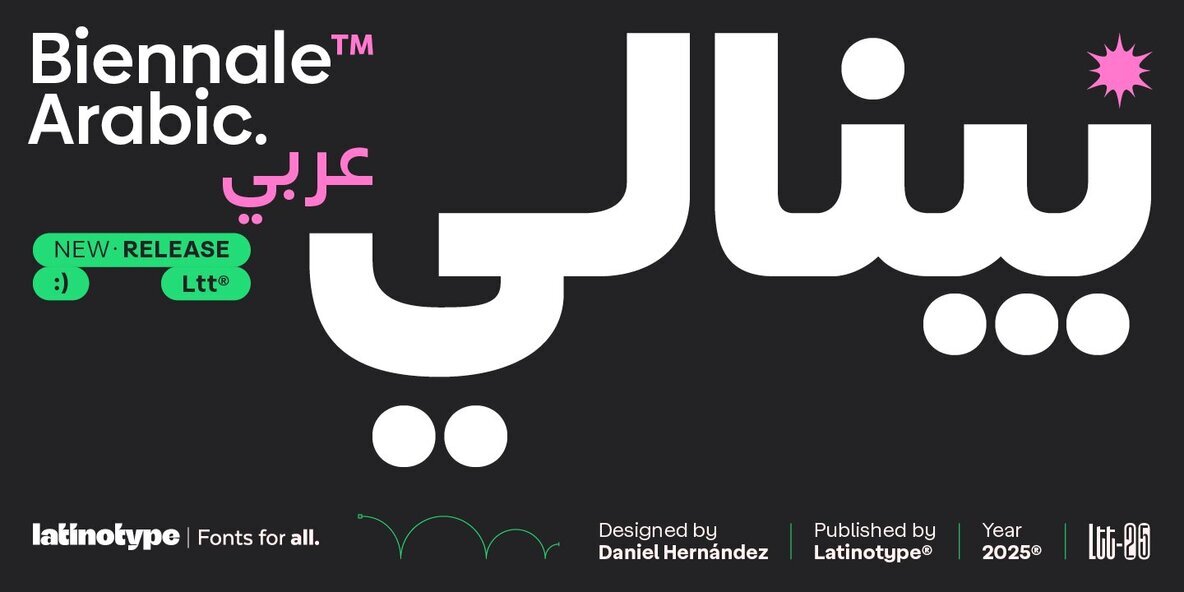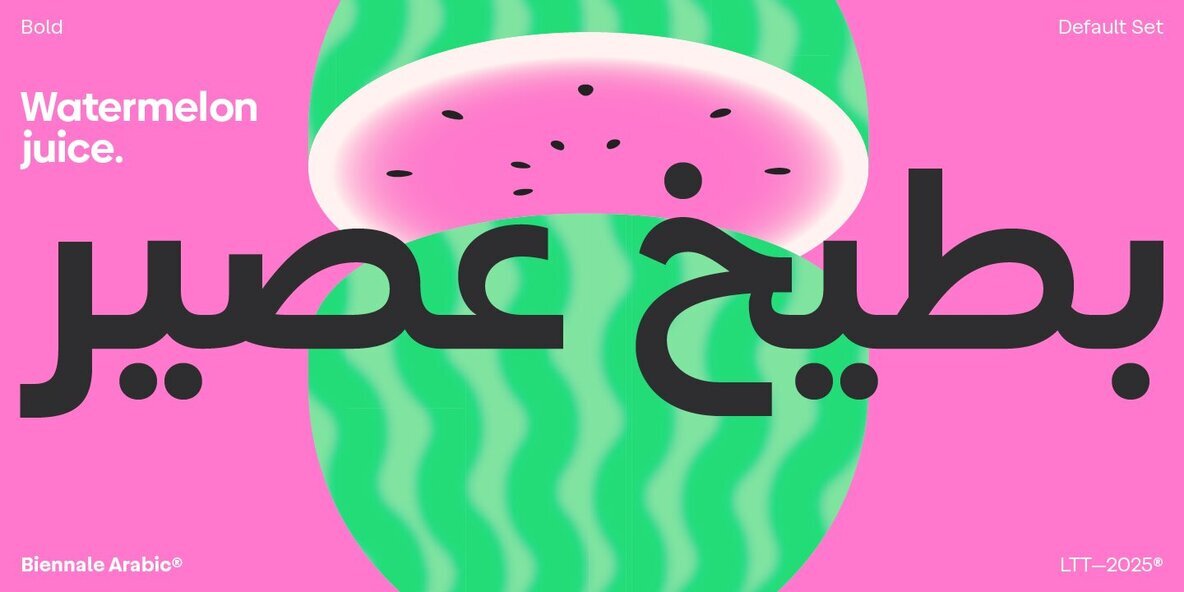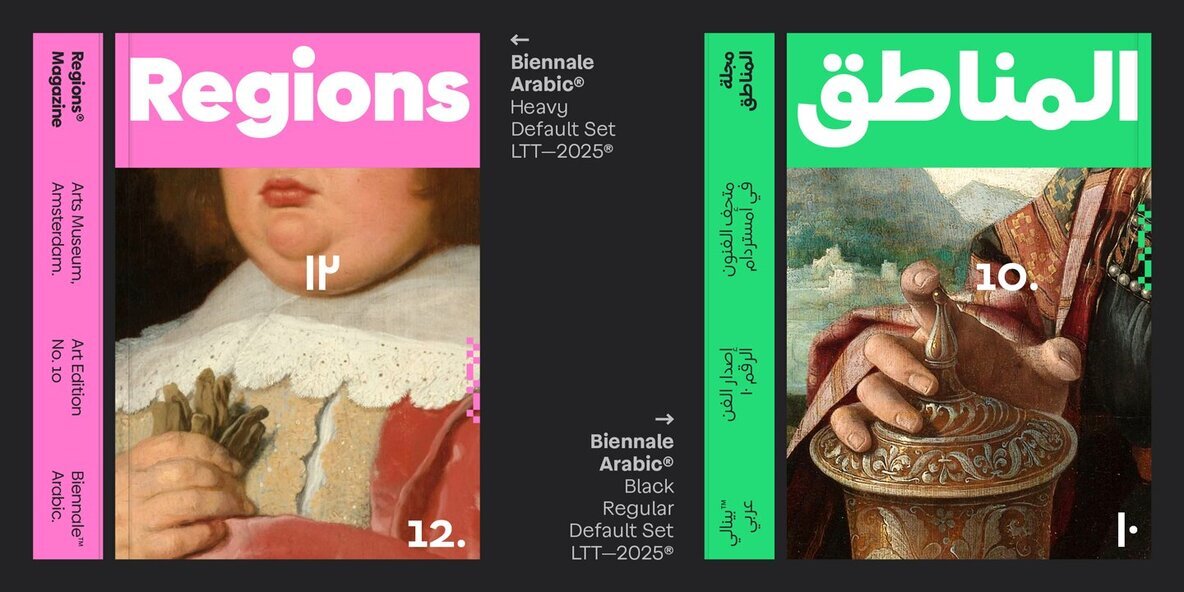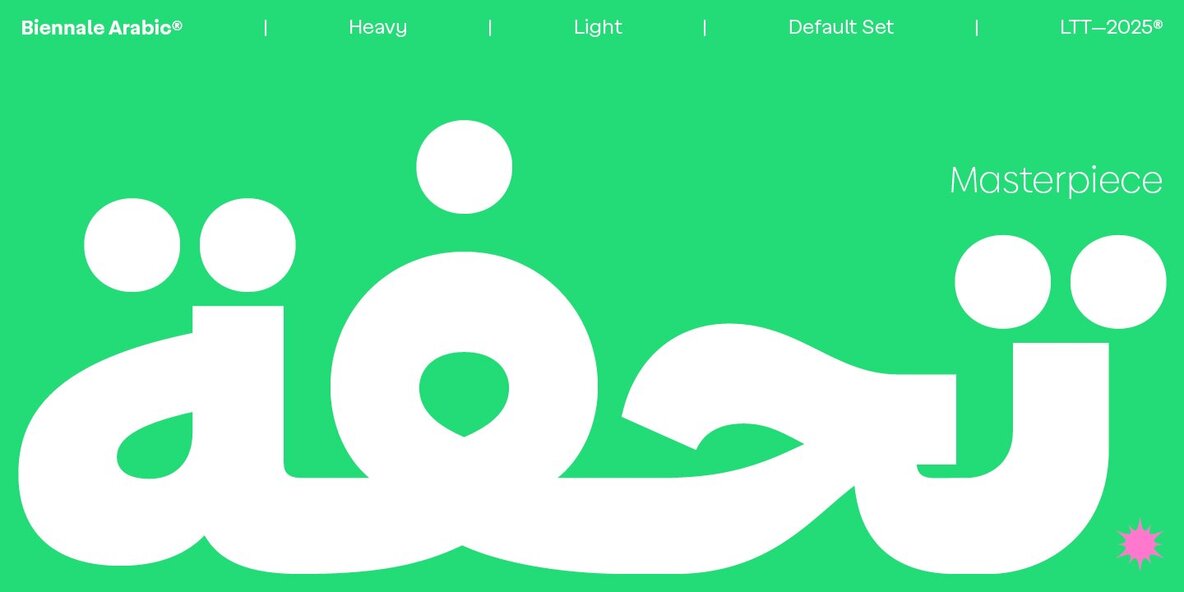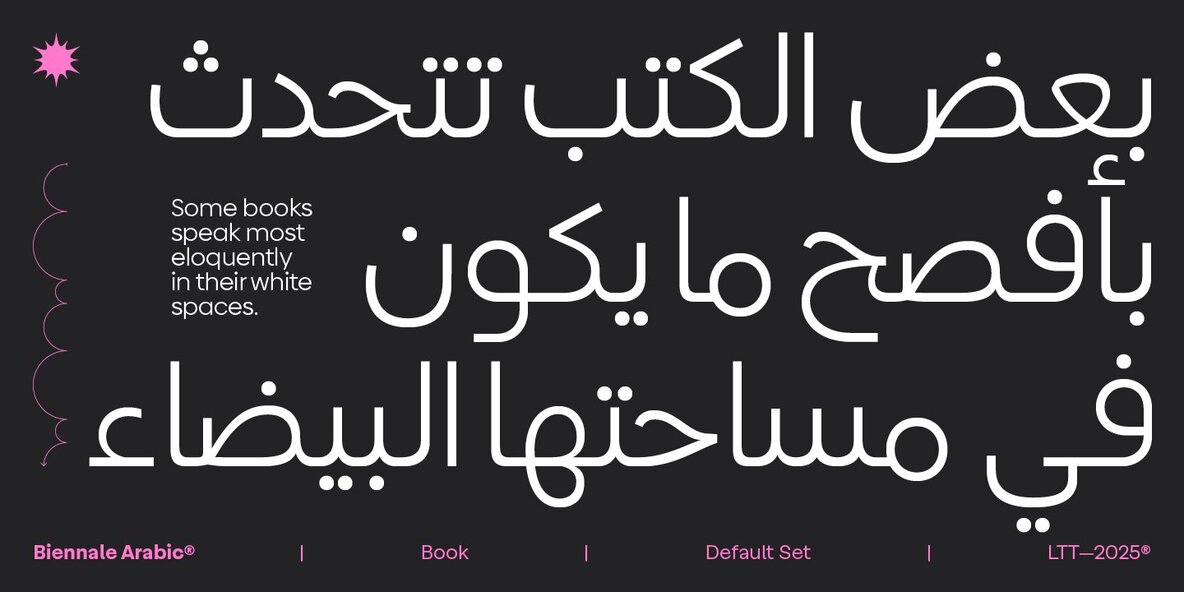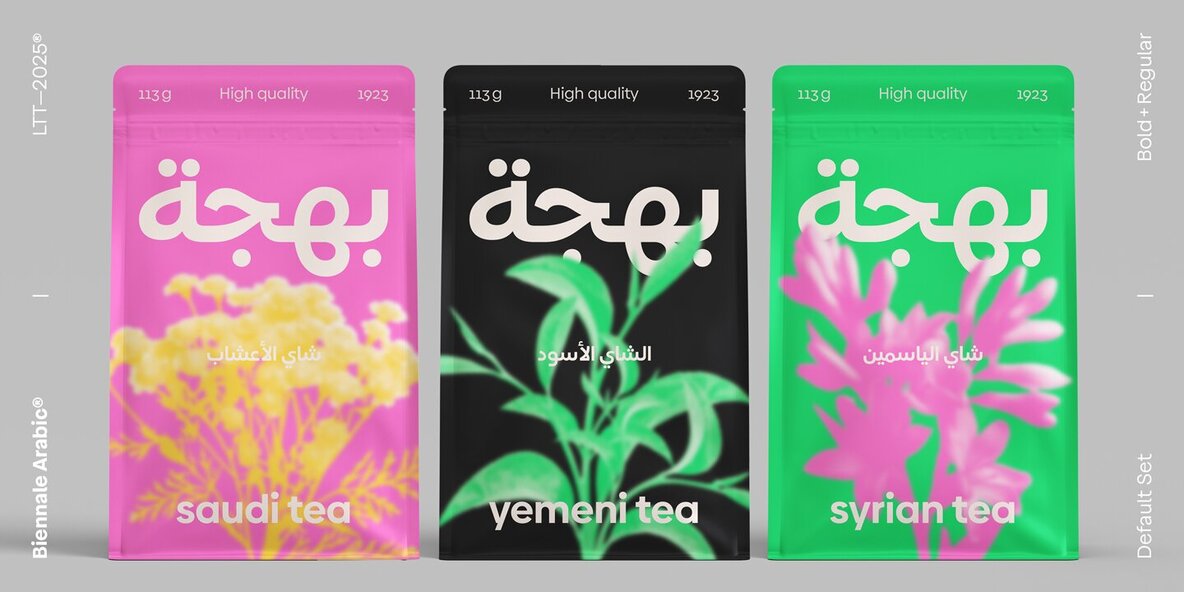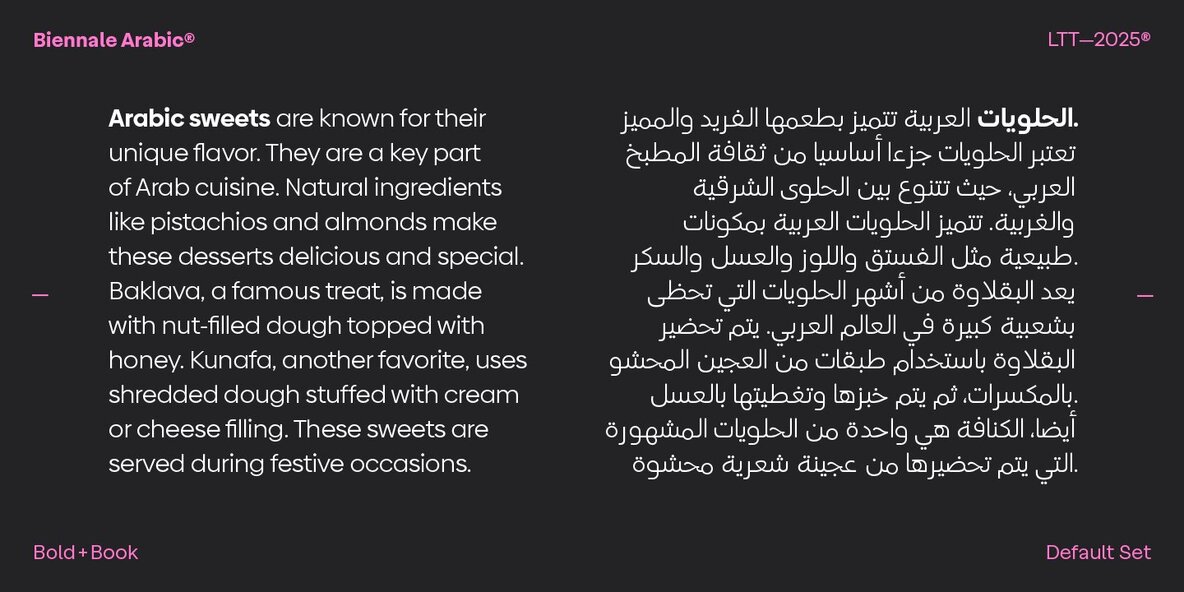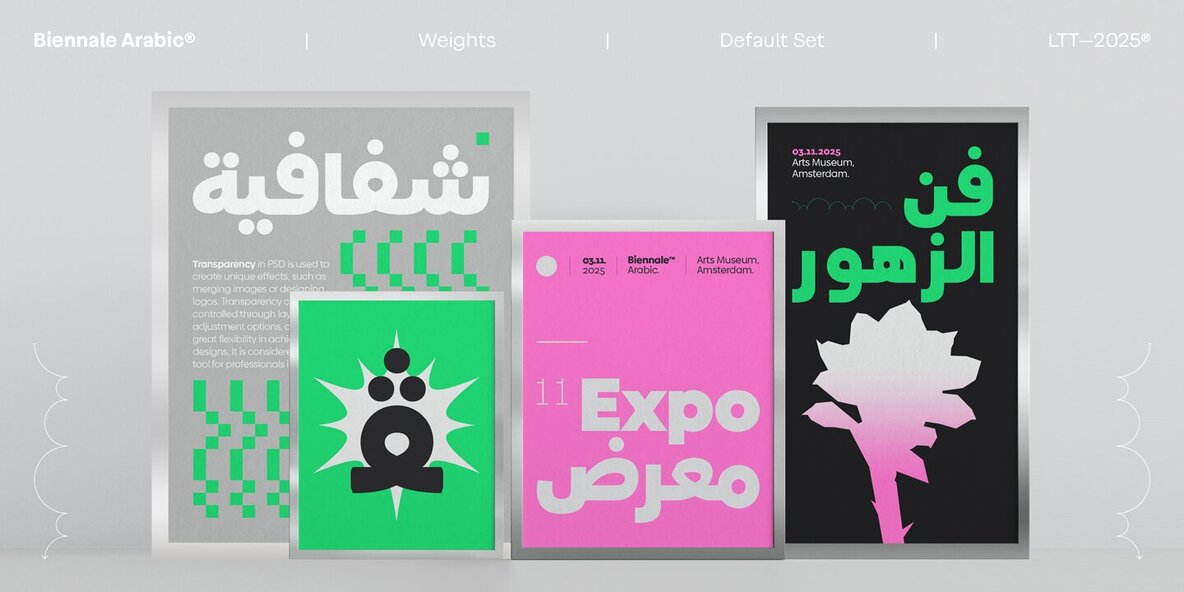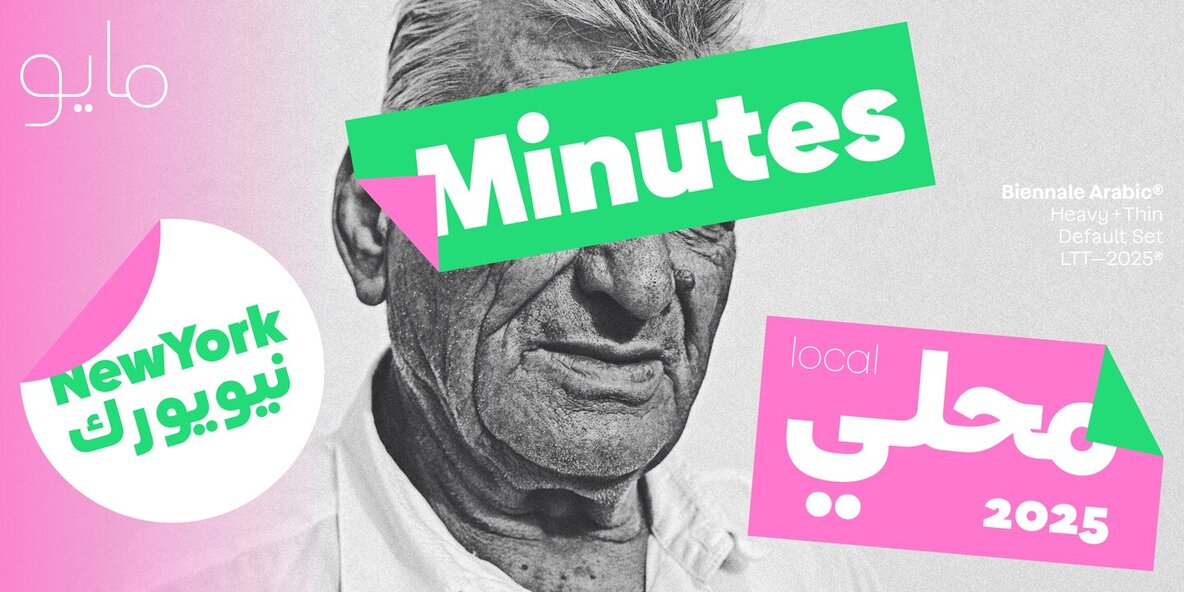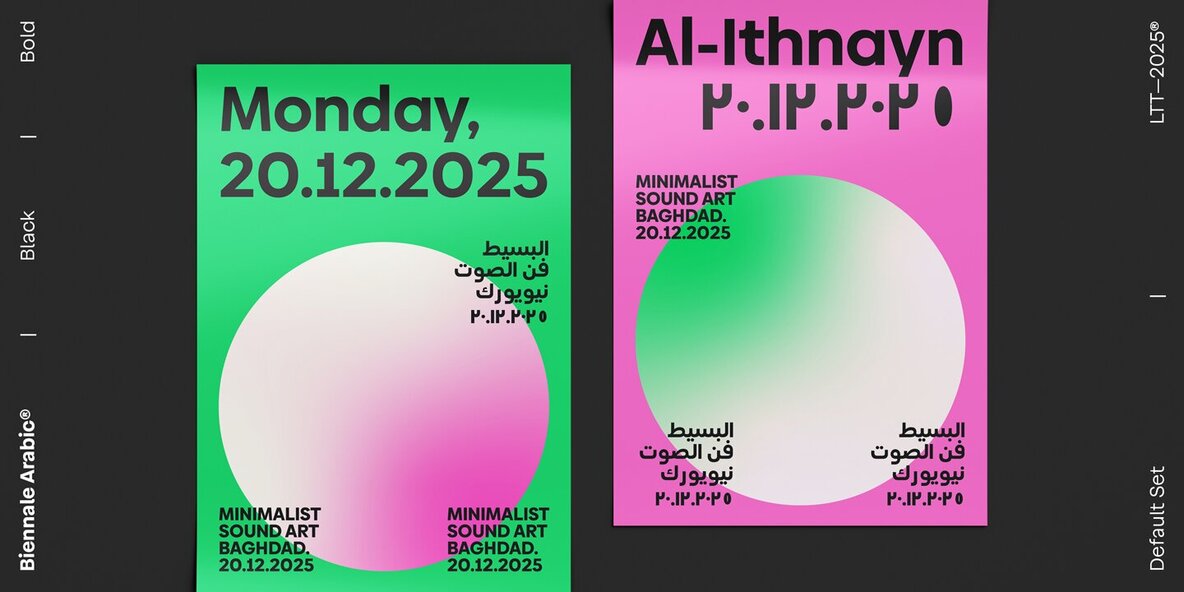
Biennale Arabic Font
Biennale extends its reach into the Arabic alphabet while maintaining its modern and geometric style. This typeface balances Arabic calligraphy with clear legibility, respecting the language's fluidity. It seamlessly integrates with the Latin version, making it a versatile addition to your design toolkit. Features: Biennale unites cultures with a global and harmonious typeface, making it perfect for modern, expressive projects that require a sophisticated touch.Biennale: Harmonious Typography for Multicultural Design